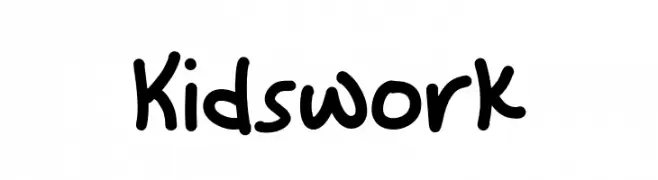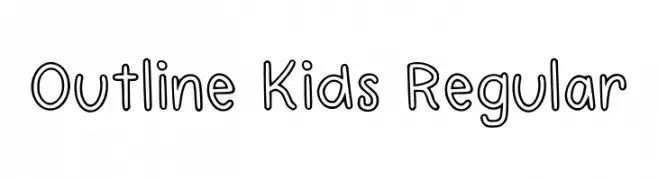
• Kids Day PERSONAL USE ONLY!
( Fonts by Kong Font )
A playful, rounded font with a hand-drawn, whimsical style.
• Munsteria
( Fonts by Tokokoo Studio )
A playful, monster-themed font with bold, animated characters.
• Kidstshirt
A playful, hand-drawn font with tall, narrow letters and a whimsical style.
• Super School Ruler
( Fonts by PutraCetol Studio )
A playful, ruler-themed font with bold, rounded letters and medium contrast.
• Kidzhood Arabic DEMO Light
( Fonts by Namela Type )
• Happy Dino PERSONAL USE ONLY!
( Fonts by Kong Font )
A playful dinosaur-themed font with whimsical elements for a fun visual impact.
• Smart Kids - Demo
( Fonts by Tera Asset Garage )
A playful, hand-drawn font with rounded, slightly irregular characters.
• Outline Kids Regular
( Fonts by Amber Masterson )
A playful, hand-drawn outline font with a whimsical and friendly style.
• Kidswork
( Fonts by Origin Type )
A playful, rounded font with a childlike, handwritten style.